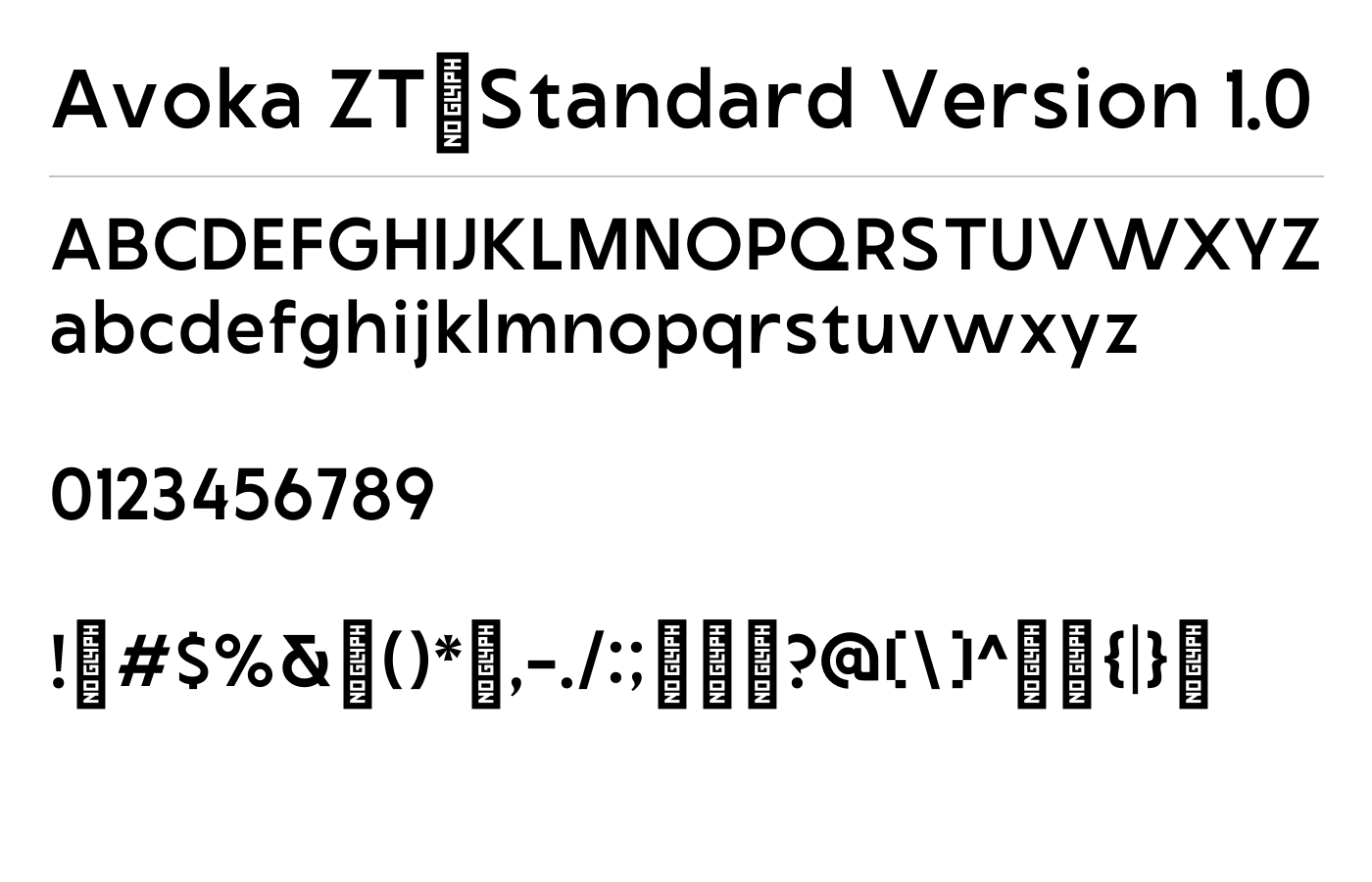
Avoka ZT is a clean, modern sans serif font with a balanced and friendly appearance. It features a regular weight, medium width, and a clear, open x-height that ensures excellent readability. Its simple, geometric shapes and smooth stroke endings make it ideal for contemporary branding, websites, and editorial use where clarity and approachability are key.
Avoka ZT_Standard Version 1.0 Font
About Avoka ZT_Standard Version 1.0 Font
| Font family | Avoka ZT_Standard Version 1.0 Font |
| Designer | Sandi Dez |